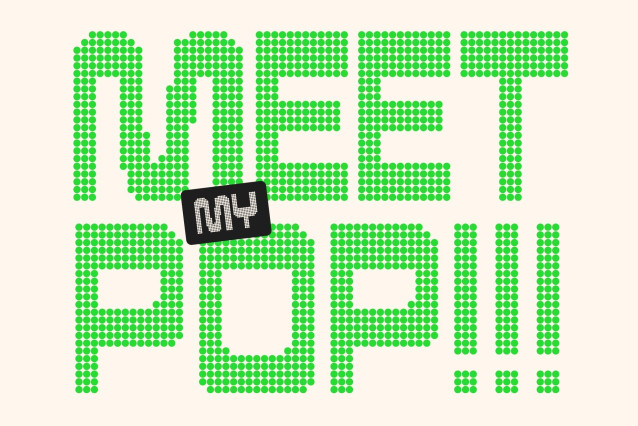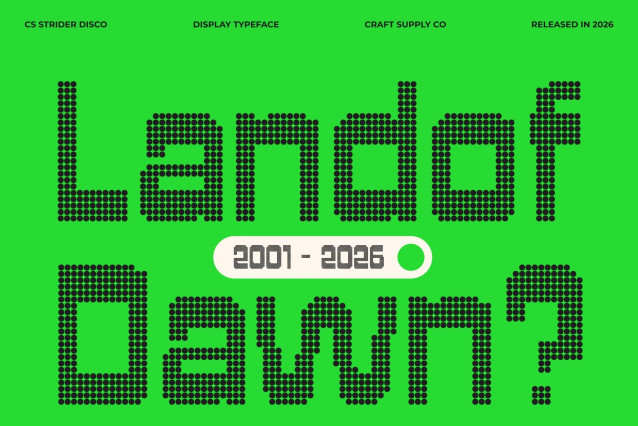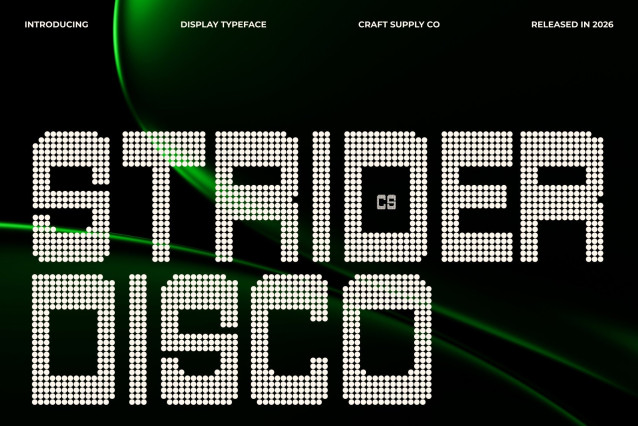
CS Strider Disco – Reverse Contrast Font: Where Retro Meets Modern Expression
Reverse Contrast with Disco Spark
This font reimagines reverse contrast typography with a vibrant dotted texture that radiates rhythm and celebration. The inverted weight distribution already creates bold visual tension, and the disco dot styling amplifies this effect with sparkle, movement, and playful energy.
Retro Soul with Modern Shine
Inspired by vintage design but refreshed with contemporary flair, this font blends nostalgic character with upbeat personality. The geometric structure remains strong and balanced, while the dotted finish adds a lively, party-ready aesthetic that feels cheerful and expressive.
Bold Personality for Eye-Catching Designs
The unique contrast and shimmering texture make every letter feel dynamic and confident. It naturally commands attention, making headlines, logos, and promotional graphics feel energetic, stylish, and unforgettable.